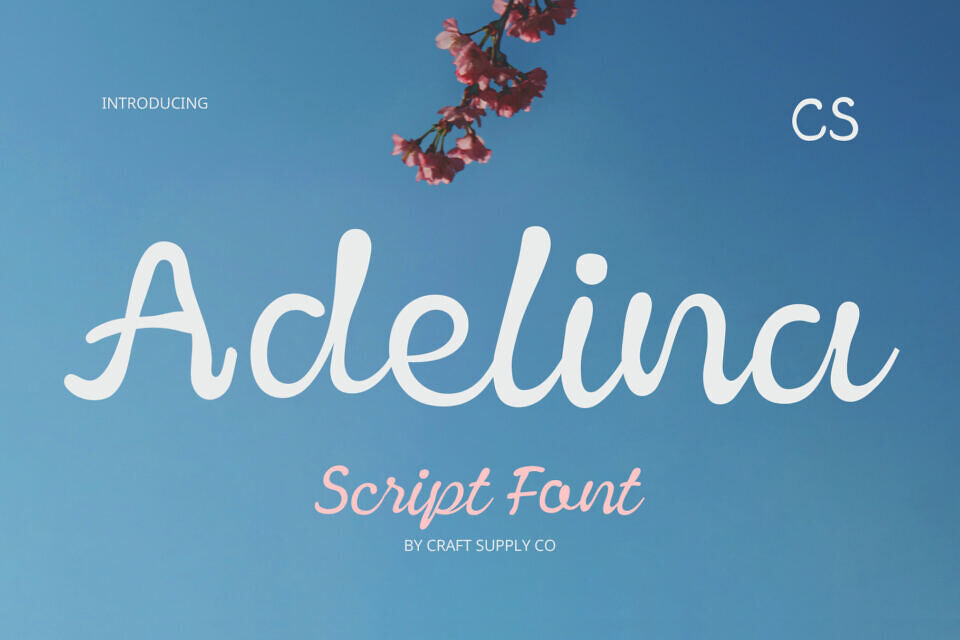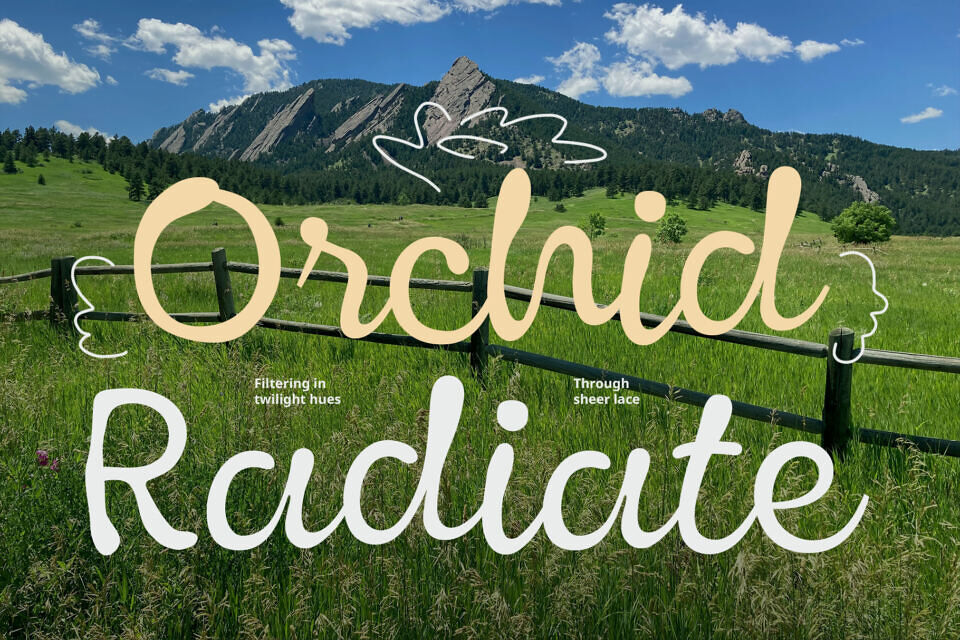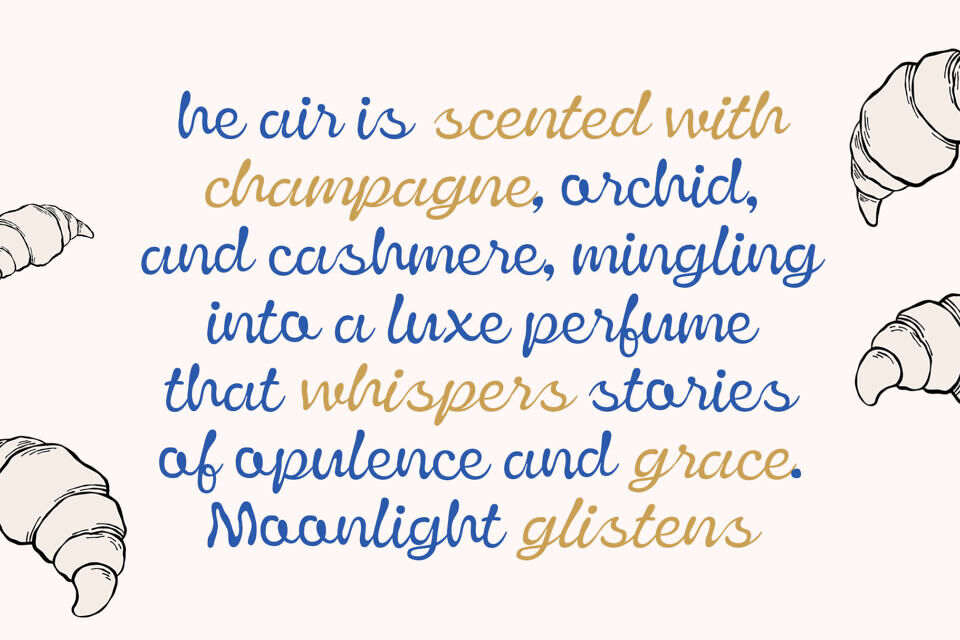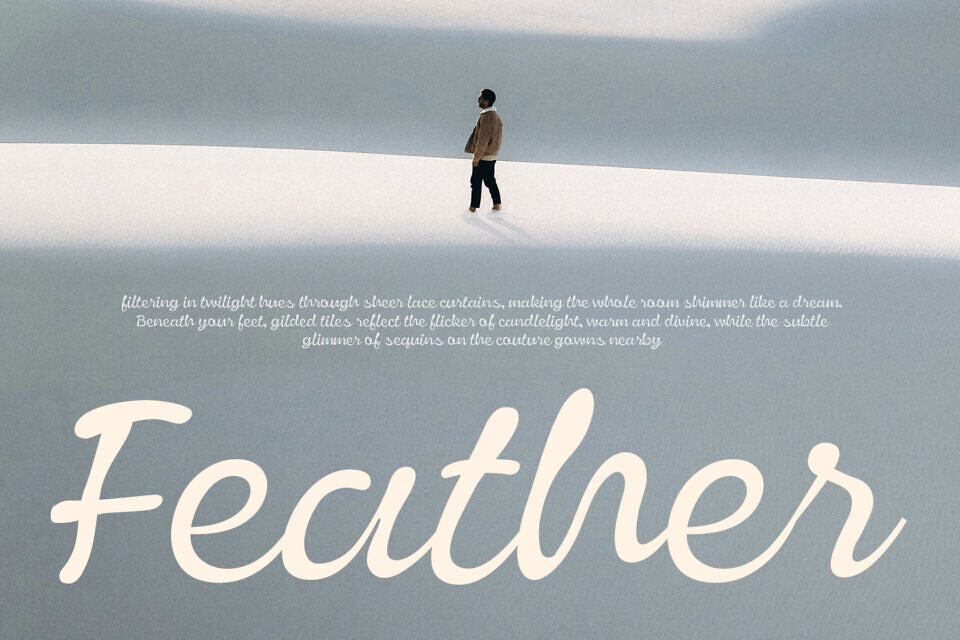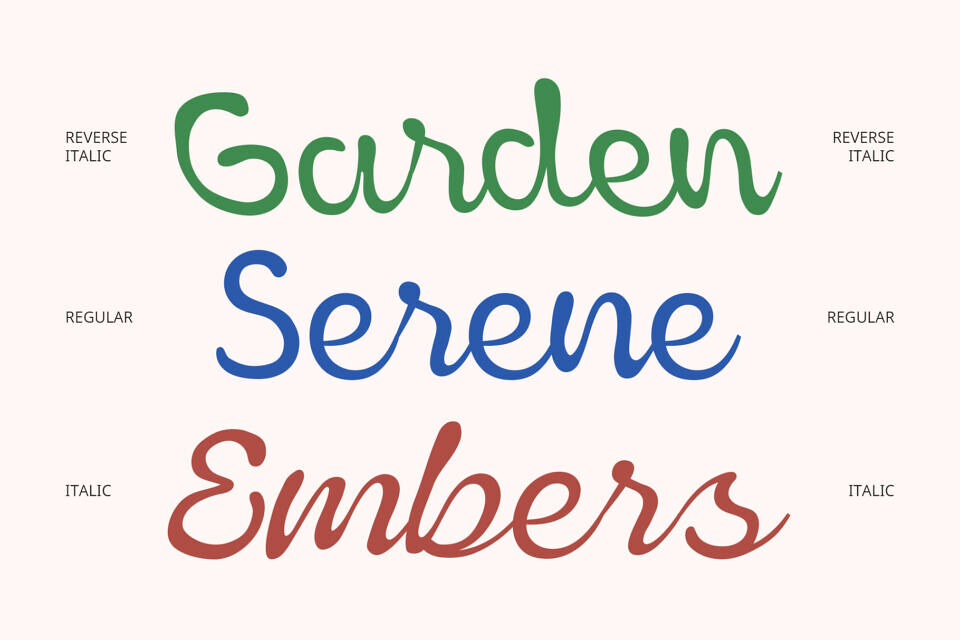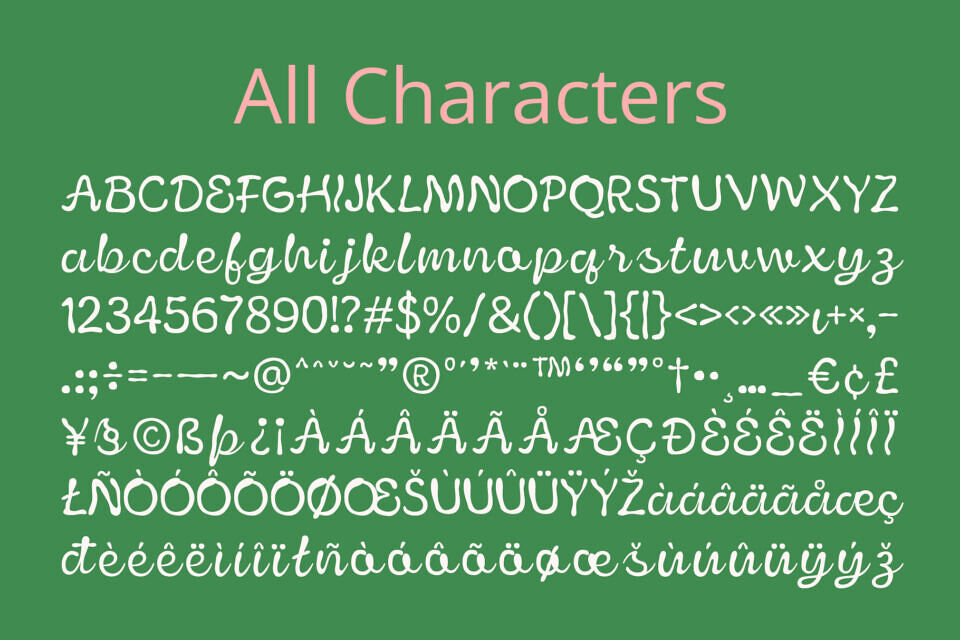
CS Adelina is a modern script font that radiates elegance, sophistication, and charm through its smooth, flowing strokes. Designed with clean curves and balanced proportions, it offers a refined visual rhythm that feels both effortless and intentional, making it ideal for high-end design applications.
While rooted in classic script aesthetics, CS Adelina introduces a minimalist and contemporary touch. Each letter is carefully crafted to appear light, graceful, and cohesive, resulting in a polished yet expressive look. It strikes the perfect balance between femininity and professionalism, appealing to modern creative sensibilities.
From wedding invitations and beauty branding to social media graphics and upscale packaging, CS Adelina elevates any design with a touch of romantic sophistication. Its flowing nature brings a human warmth, while its clean execution ensures readability and visual impact.